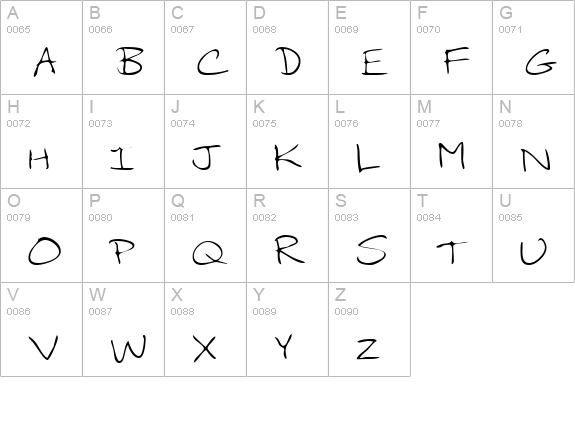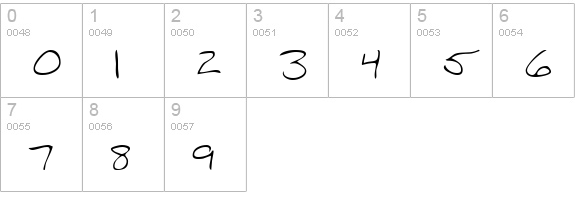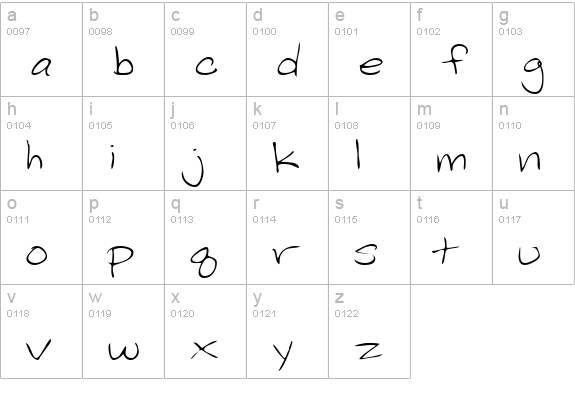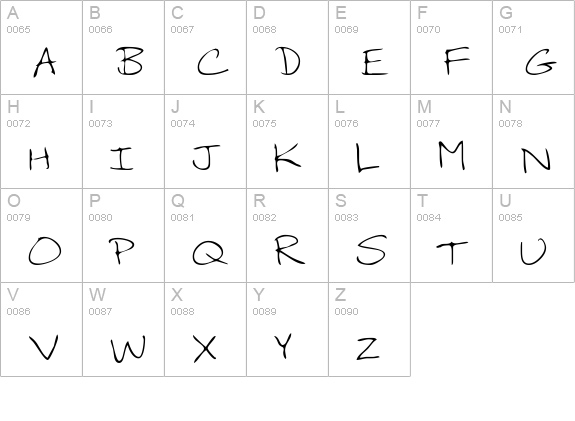
MiriamsHand Regular Font Details
MiriamsHand Regular is the standard, neutral variant in the MiriamsHand typeface family \xE2\x80\x94 well suited to general body text, paragraphs, and standard typographic work.
MiriamsHand Regular font is a whimsical and charming typeface that exudes a sense of warmth and friendliness. Designed with organic curves and delicate strokes, this font adds a personal touch to any design project. Its handwritten appearance gives off a sense of authenticity and approachability, making it perfect for a wide range of creative applications. What makes MiriamsHand Regular font even more appealing is that it is completely free to download at FontsMarket.com. This means that you can easily access this beautiful font without any cost, allowing you to enhance your projects with a touch of creativity and style. Whether you are designing invitations, greeting cards, or branding materials, MiriamsHand Regular font is sure to make your text stand out with its unique personality. Download it today and add a touch of handmade charm to your designs!